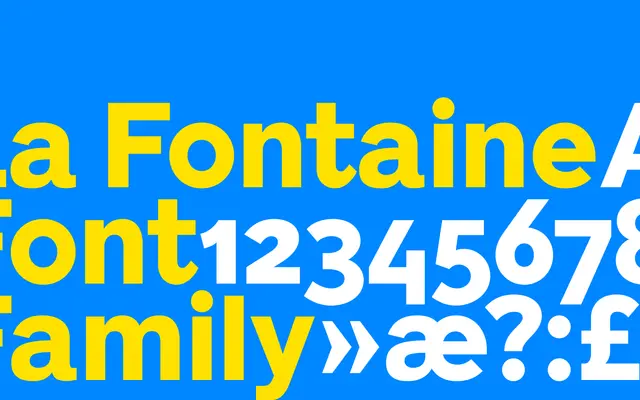
La Fontaine specimen from Playtype
A serif typeface from Playtype with a literary character, suited to editorial and long-form text work.
La Fontaine carries a classical, literary sensibility consistent with its namesake, the French fabulist Jean de La Fontaine. The page copy is sparse, offering little technical detail, but the tone suggests a refined text serif intended for editorial contexts. Playtype's broader catalogue tends toward considered, Scandinavian design, which situates this as a serious text face rather than a display novelty.
The name and the quote suggesting literary, classical sensibility point toward a refined serif tradition; without more detail, a transitional serif classification is the most defensible given the Playtype catalogue context.